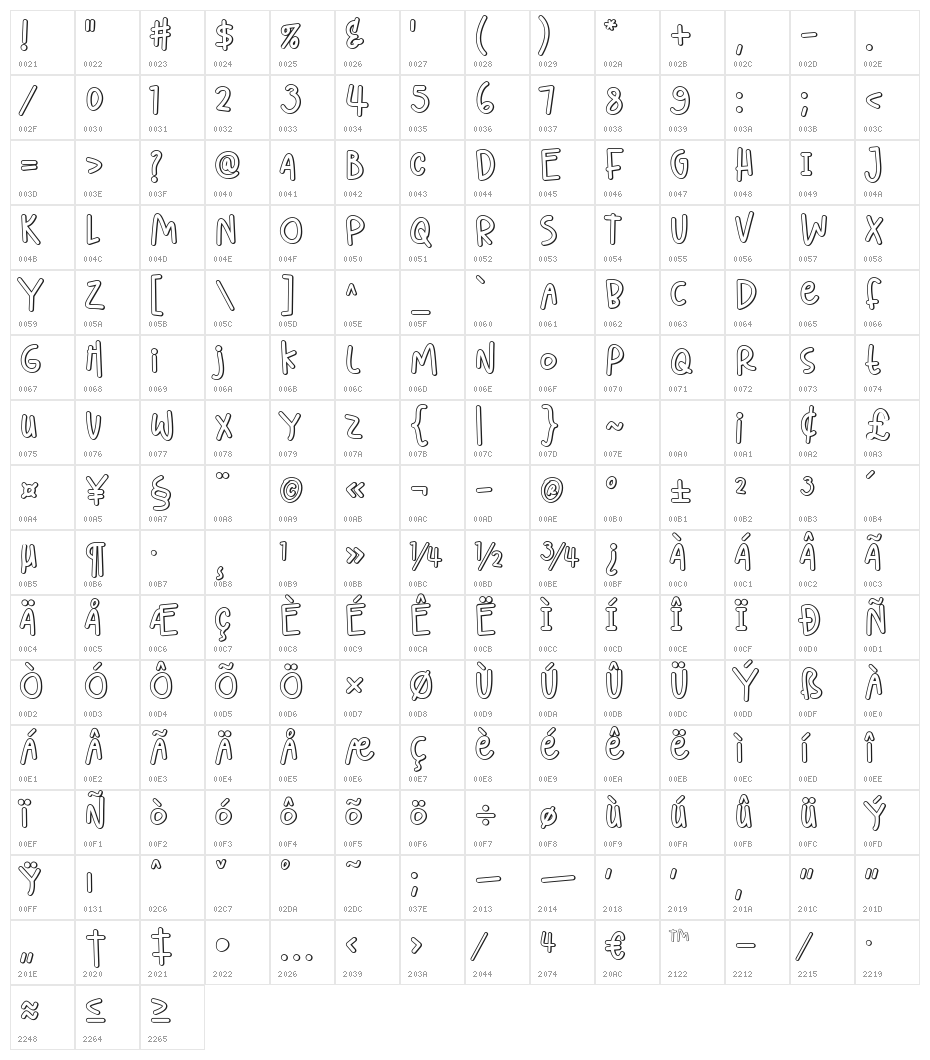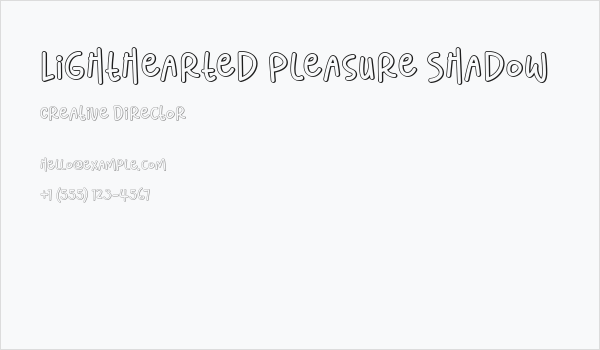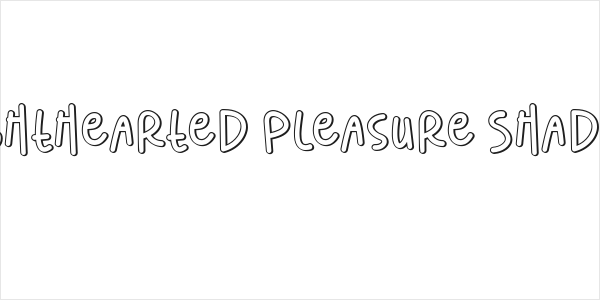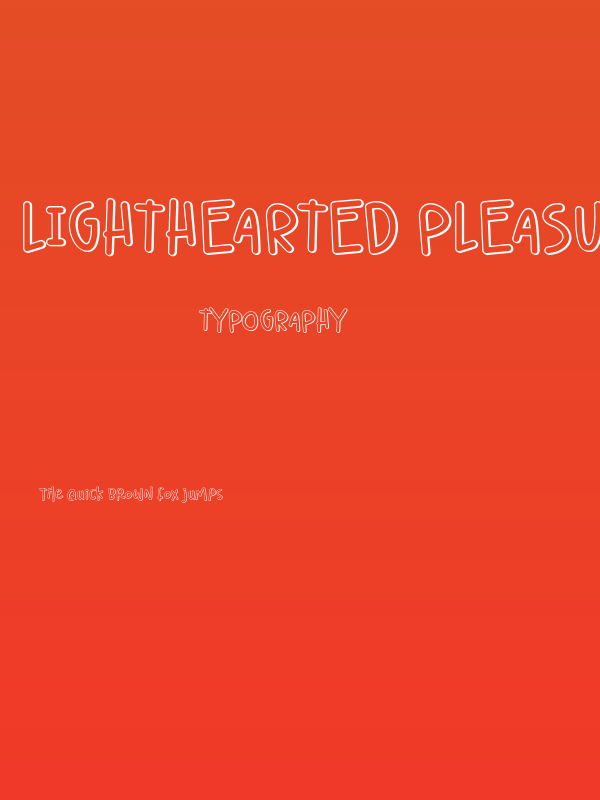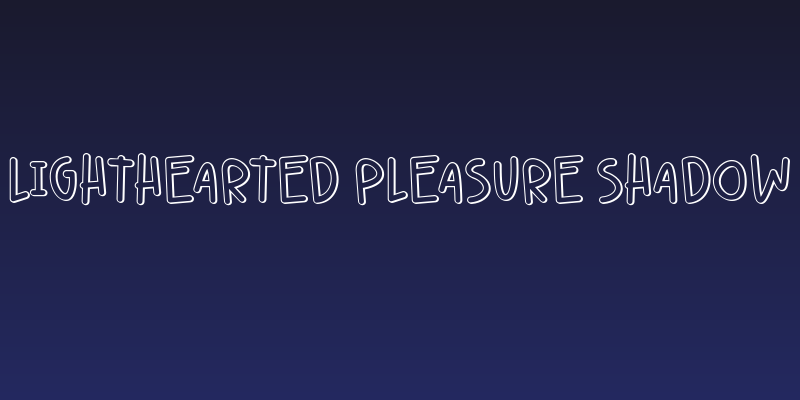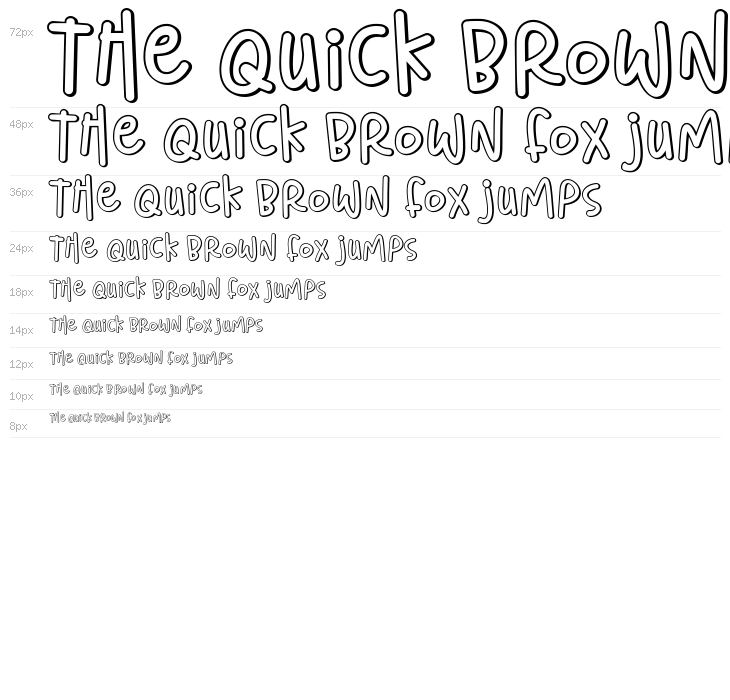
Lighthearted Pleasure Shadow Font
Lighthearted Pleasure Shadow Description
This playful and whimsical font features a hand-drawn style with a shadow effect that adds depth and character. The letters are bold and rounded, giving them a friendly and approachable appearance. Each character is outlined, creating a shadow that enhances the three-dimensional look. The font maintains a consistent stroke width, contributing to its casual and informal vibe. It is well-suited for projects that require a fun and lighthearted touch, such as children's books, playful branding, or creative posters. The numbers and special characters are designed to match the overall style, ensuring a cohesive look across all text elements.
| Proposed Projects | Ideal for children's books, playful branding, creative posters, and any project needing a whimsical touch. |